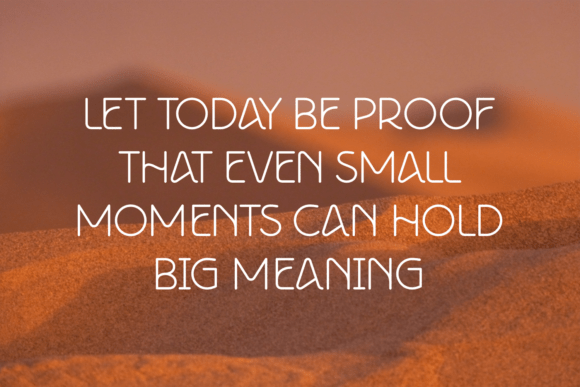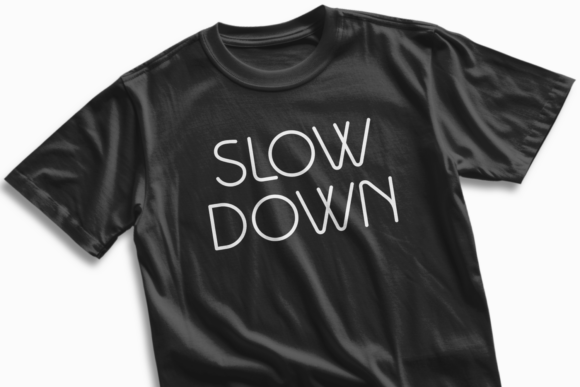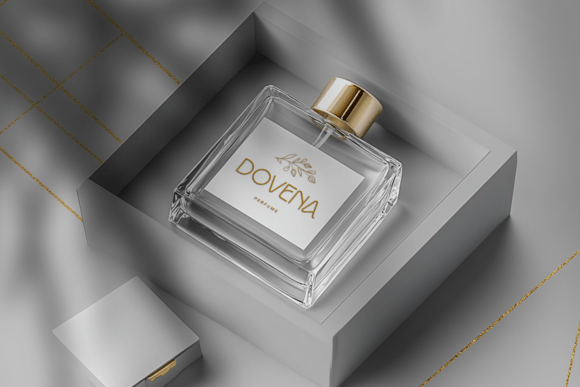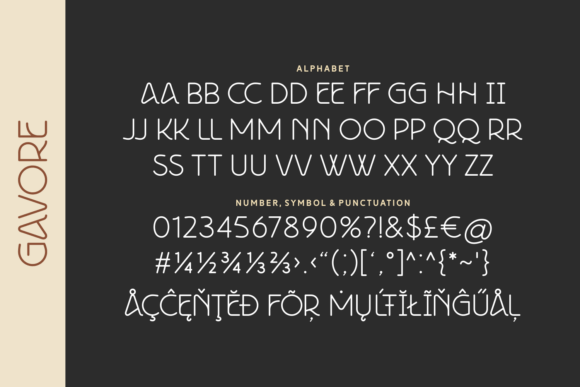
Introduction to Gavore Font
As a designer, there’s nothing quite like the thrill of stumbling upon a new font that sparks inspiration for a creative project. It’s that moment when the perfect combination of style and functionality clicks, and suddenly, your entire vision comes into focus. For many designers, that moment of clarity often involves discovering a high-quality design resource that elevates their work to the next level. And for those in search of a fresh, modern aesthetic, the Gavore Font is sure to be a game-changer.
A free download that’s perfect for lifestyle branding, children’s projects, and soft product packaging, the Gavore Font offers a unique balance of modern elegance and friendly simplicity. With its rounded curves and airy spacing, this versatile font is ideal for feminine logos, stationery, skincare brands, or social media posts that aim for a light and modern feel.
Key Features of Gavore Font
- Comes with a transparent background, allowing for easy customization and flexibility.
- Features a unique, modern design with a mix of bold and elegant lines, making it perfect for various creative projects.
- Designed to be highly legible and versatile, making it suitable for a wide range of creative projects, from logos to digital displays.
Honest Review: Gavore Font
As a designer, I’m always on the lookout for high-quality design resources that can elevate my creative projects. Recently, I stumbled upon the Gavore Font, and I’m excited to share my honest review with you.
Here’s what I love about the Gavore Font:
- ✨ The design is modern and sleek, making it perfect for a wide range of creative projects.
- ✨ The font comes with a transparent background, which gives me the flexibility to use it with any color scheme.
- ✨ The high-quality design ensures that my projects look professional and polished.
- ⚠️ The font only comes in a few weights, which might limit its versatility in certain design situations.
- ⚠️ Some users might find the font a bit too minimalist, which could be a drawback for those who prefer more ornate typography.
Overall, I’m impressed with the Gavore Font, and I would definitely recommend it to fellow designers. It’s a great resource for anyone looking for a high-quality, free font to elevate their creative projects.
Tips for Getting the Most Out of Gavore Font
Use the Gavore Font in combination with other design elements, such as images and graphics, to create a visually appealing design. Experiment with different font sizes, colors, and styles to find the perfect combination for your creative project.
Common Use Cases for Gavore Font
The Gavore Font is perfect for use in a variety of creative projects, including logos, brochures, posters, and social media graphics. Its high-quality design and transparent background make it a versatile font for any design need.
Alternatives to Gavore Font
Monserrat is a popular, high-quality sans-serif font perfect for creative projects that require a modern and clean design. It’s free to download and features a transparent background, making it ideal for graphic design and digital art.
Montserrat is a great alternative to Gavore Font when you need a more modern and minimalist look for your design project. It’s also highly legible and suitable for both web and print designs.